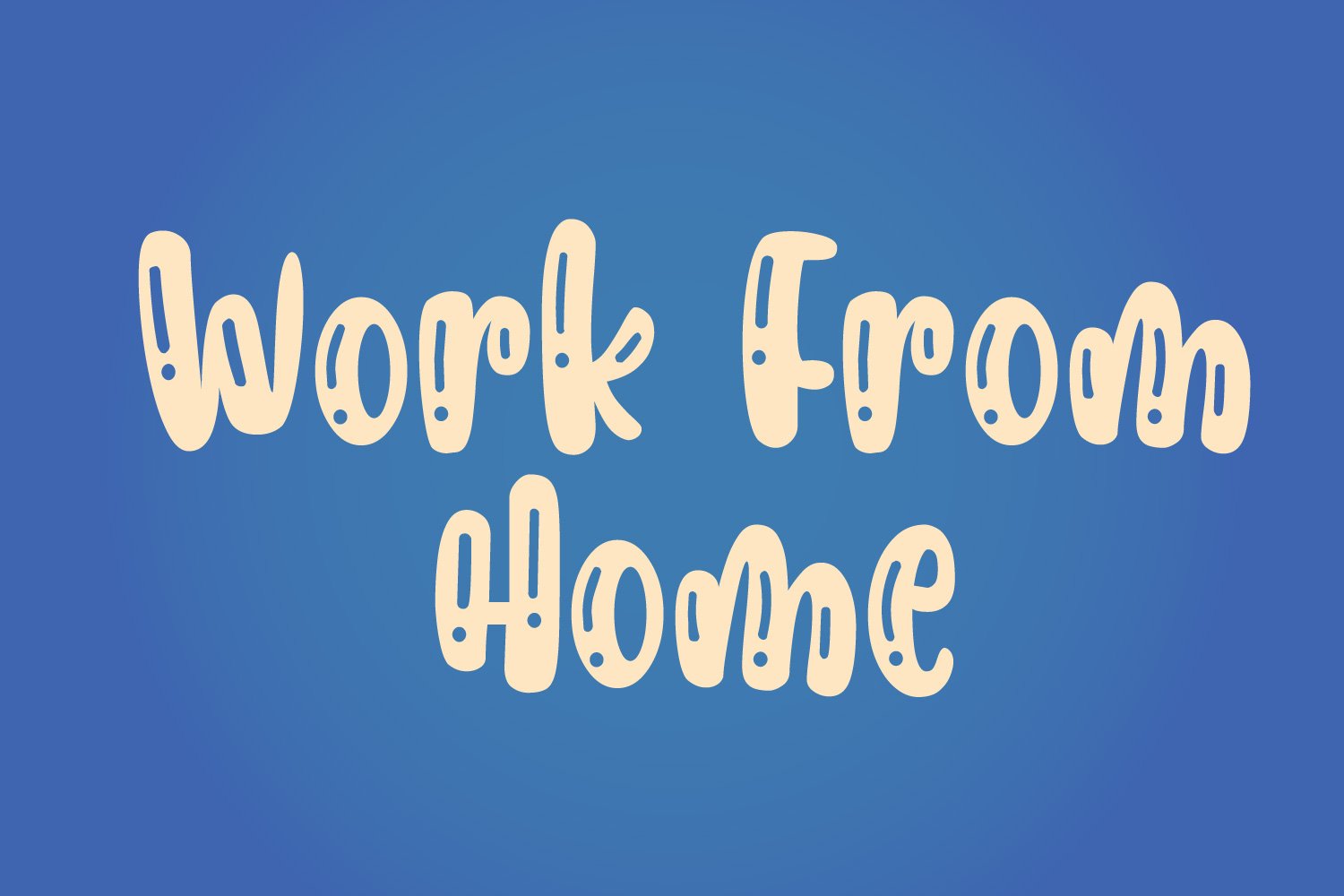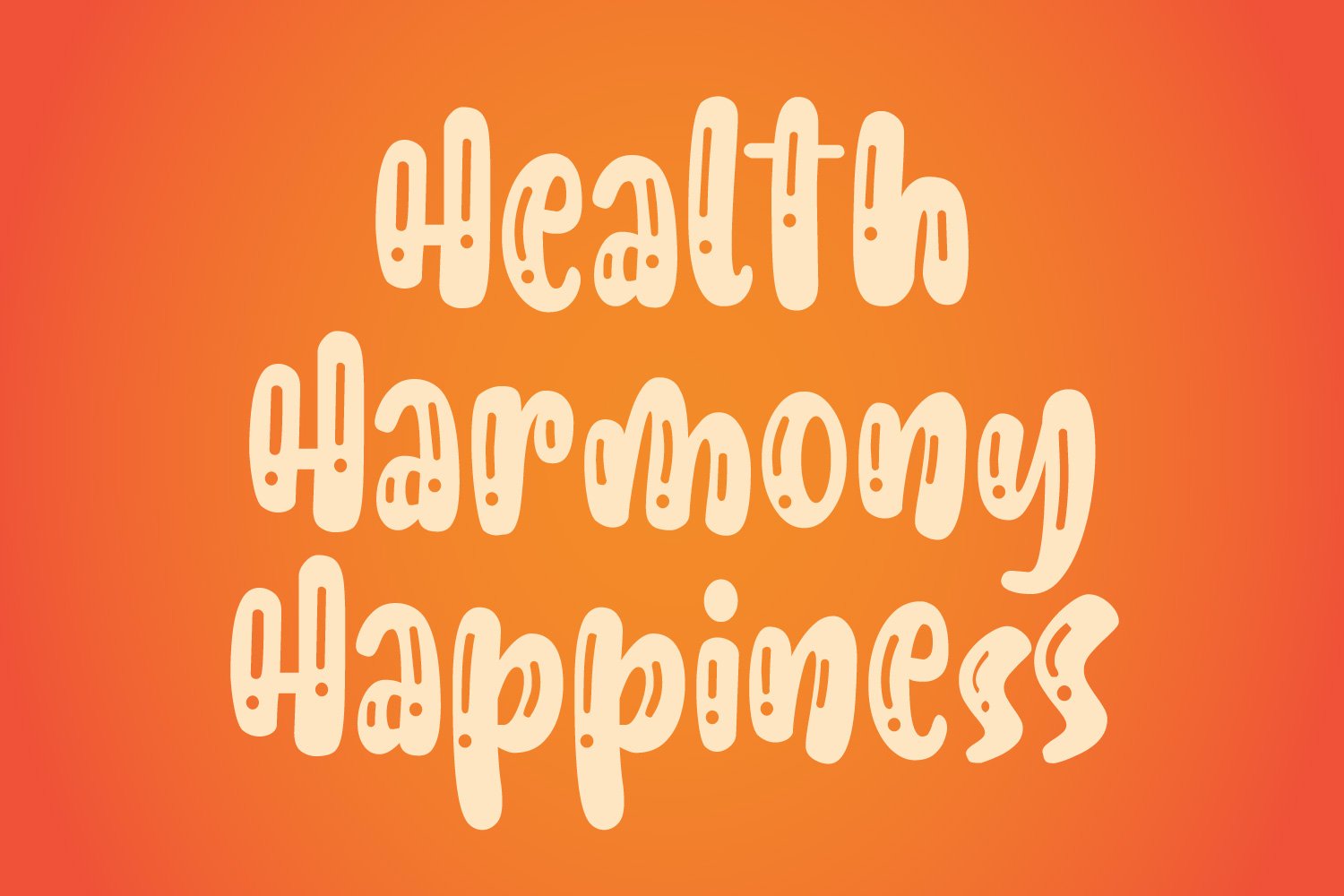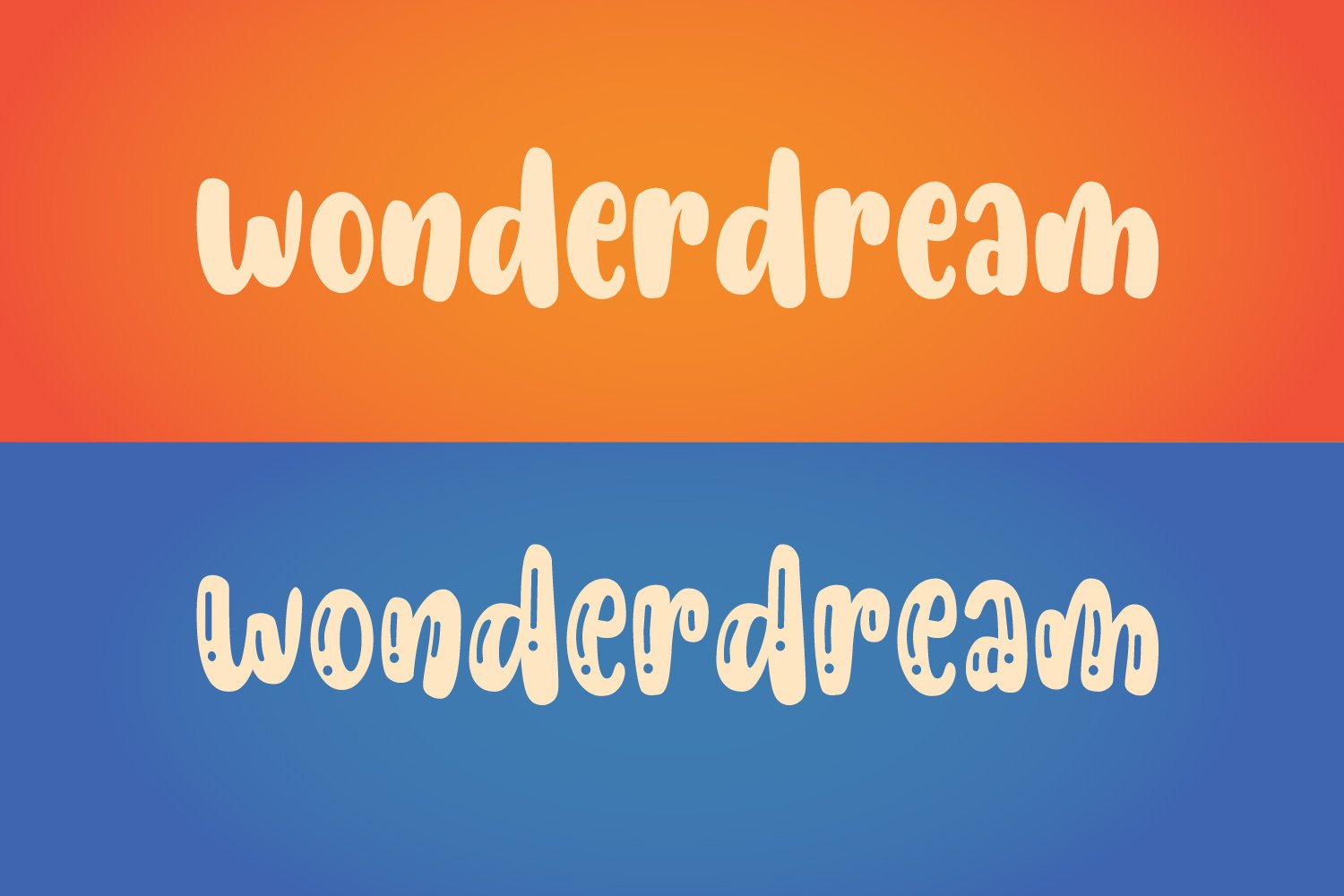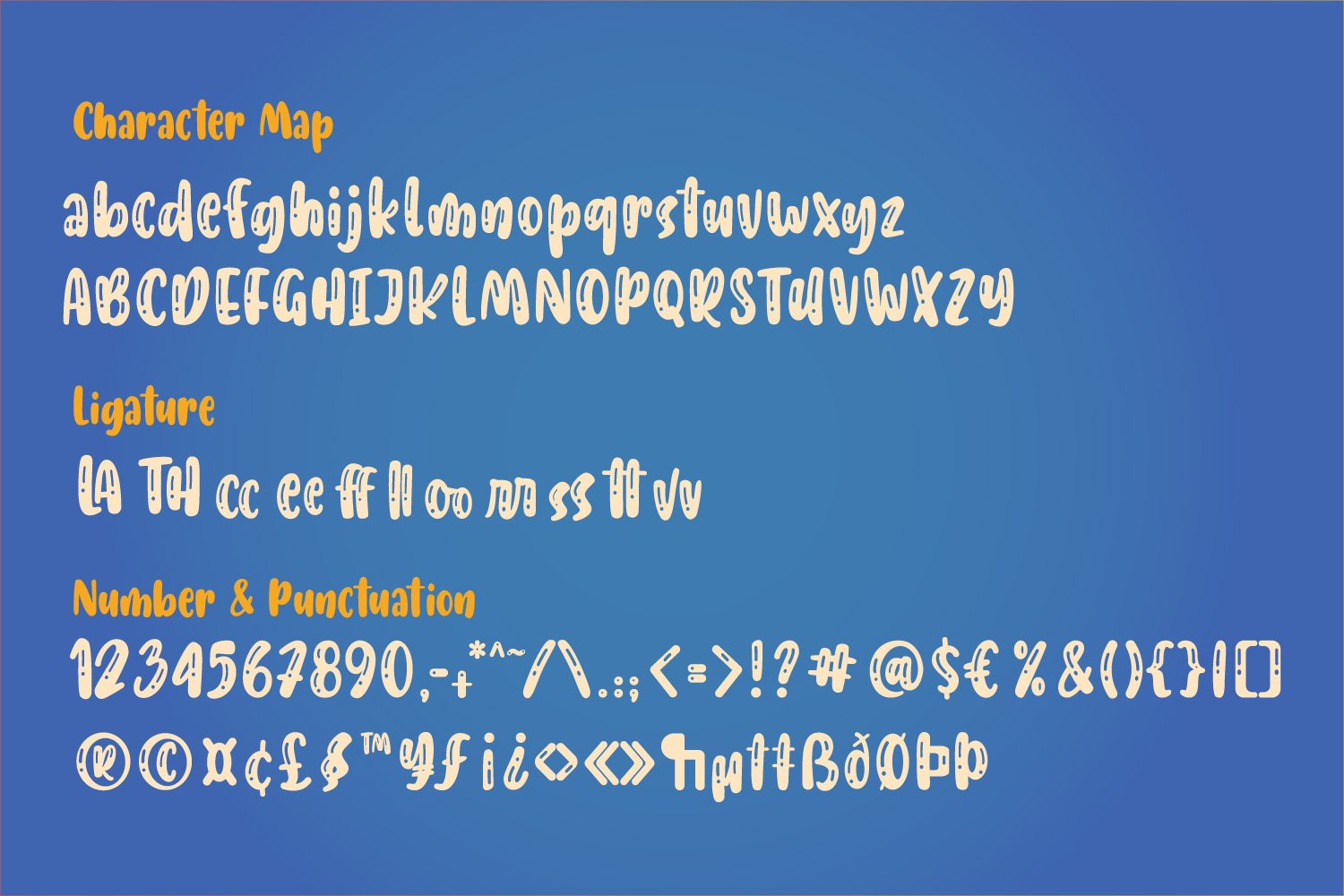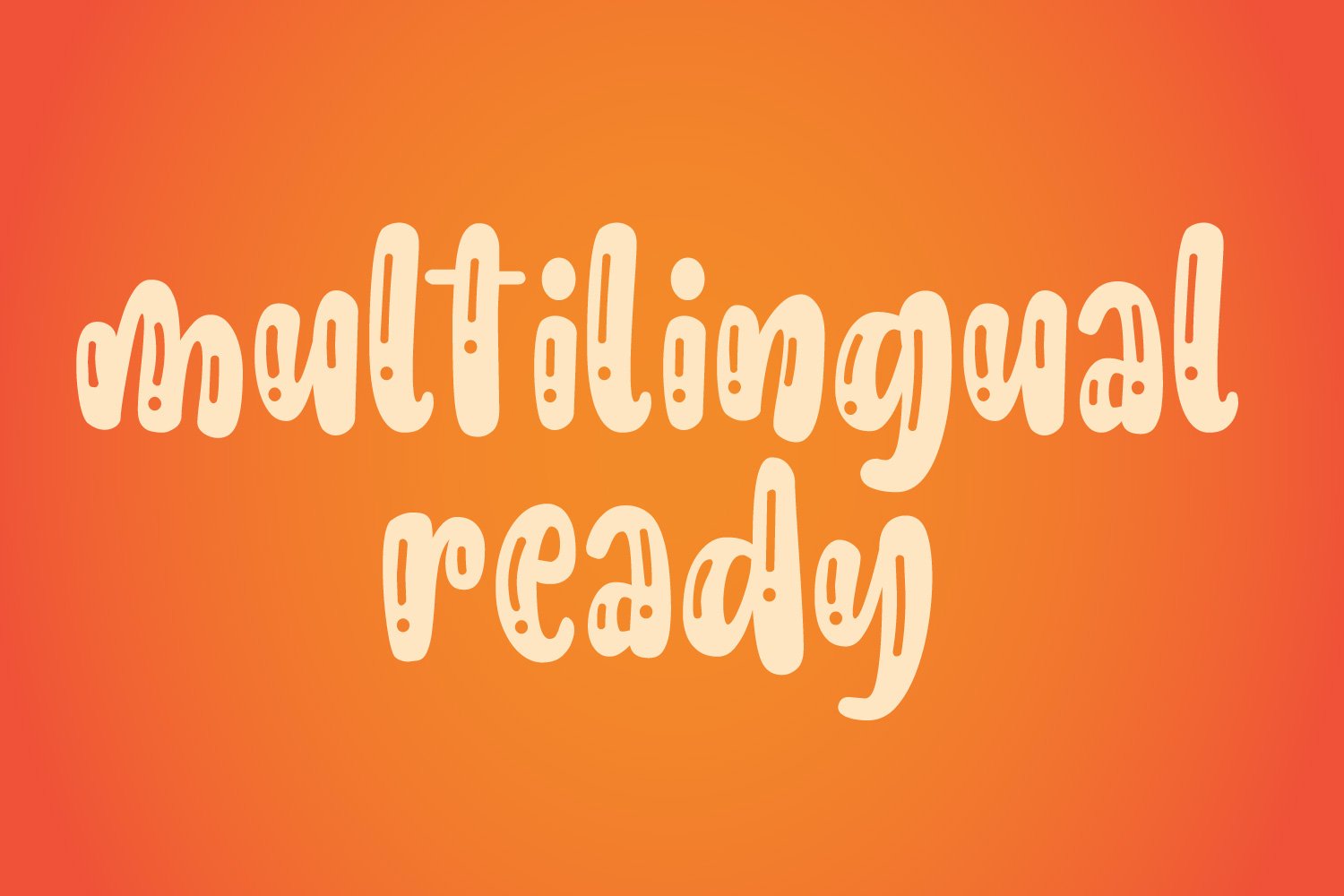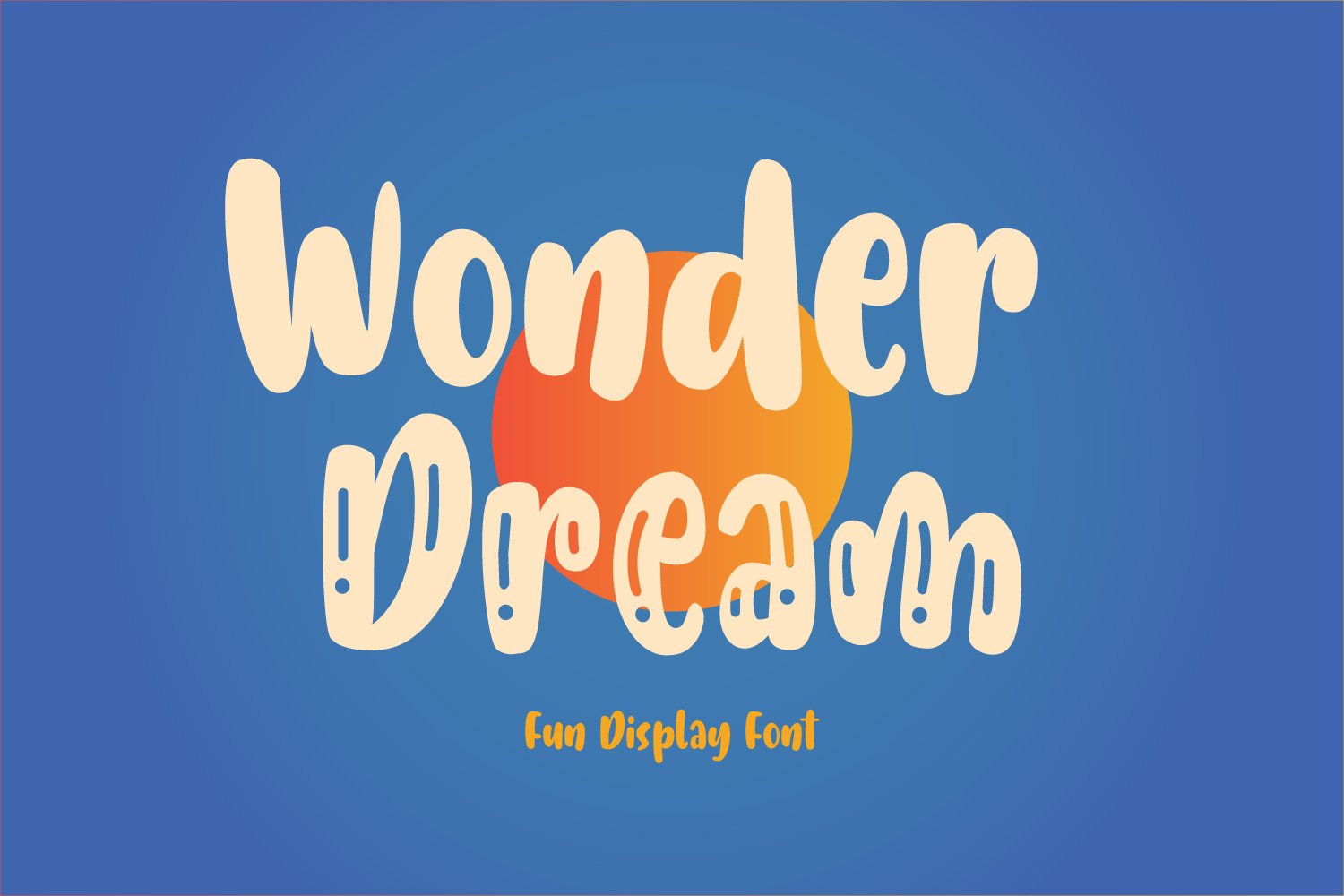
Imagination deserves typography that matches its boundless energy — and Wonder Dream Playful Display Font does exactly that. A whimsical brush font with a magical, hand-painted soul, Wonder Dream transforms any design into a canvas of creative wonder, perfect for brands and projects that dare to believe in the extraordinary.
The defining quality of Wonder Dream is its authentic brush stroke character. Every letterform carries the expressive, slightly imperfect beauty of genuine hand-painting — thick bristle strokes, organic ink variation, and softly textured edges that feel genuinely crafted rather than digitally manufactured. This is a brush font that breathes. The playful, energetic baseline movement adds to its storytelling quality, making it feel like each word is an invitation into a world of imagination and adventure.
Wonder Dream was designed for children’s storytelling brands — picture book covers, chapter book titles, children’s app splash screens, and educational product packaging all come alive with Wonder Dream’s magical personality. Creative packaging designers working on toys, games, and imaginative children’s products use it to instantly communicate the sense of wonder and discovery that drives purchase decisions for young audiences and their parents alike.
The font is equally powerful in the adult market for brands that want to evoke nostalgia, creativity, and emotional warmth. Artisan food packaging, handcrafted gift products, whimsical café branding, festival event graphics, and creative studio identities all benefit from Wonder Dream’s distinctive personality. Pair it with watercolor textures and earthy, warm palettes for maximum visual impact.